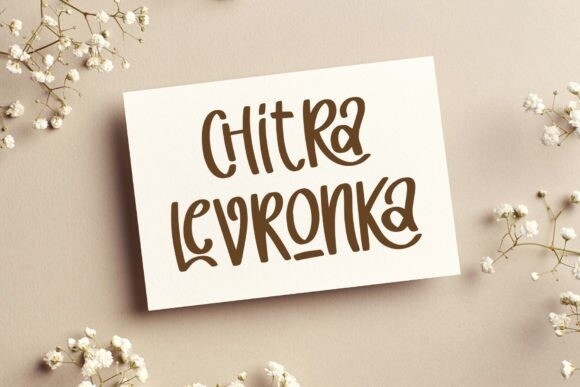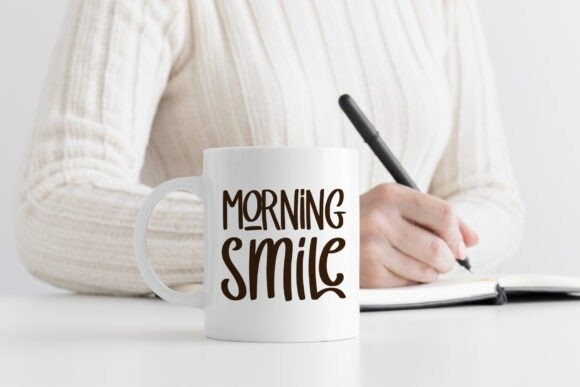
Rothi Kola Font
Rothi Kola is a stylish and modern script font that is the perfect choice for any design project that requires a touch of elegance and sophistication. With its sleek lines, fluid curves, and dynamic letterforms, this font is sure to make a bold statement while still maintaining its refined and polished appearance. Perfect for logos, branding, and editorial design.